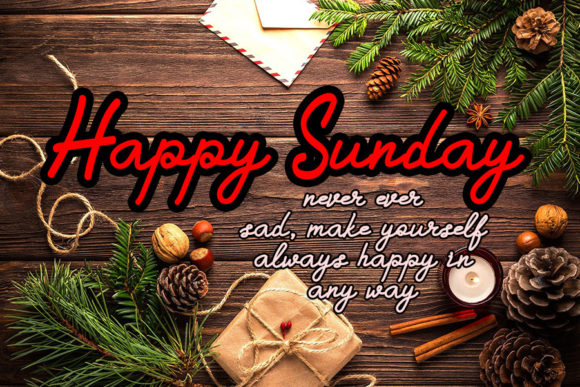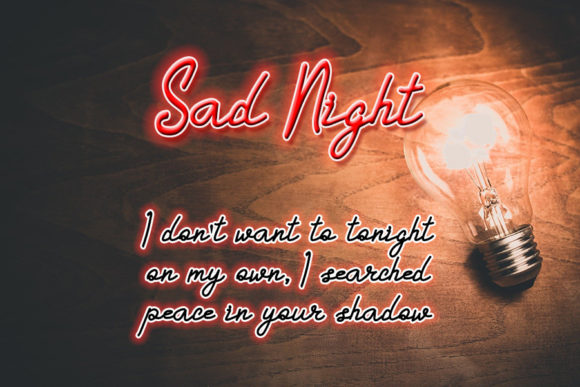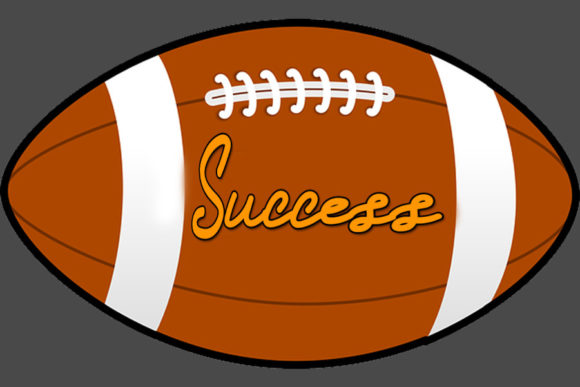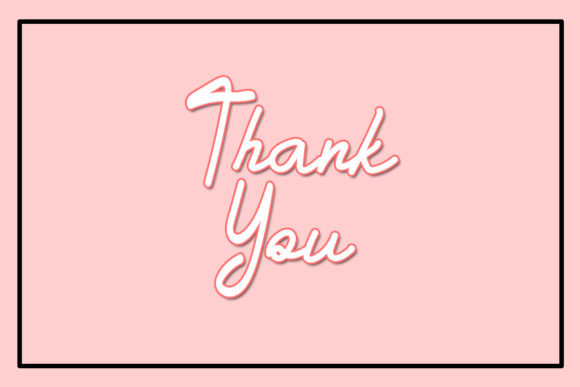
Introducing Buttercotch Font: The Sweetest Addition to Your Design Arsenal
Are you tired of using the same old fonts in your design projects? Look no further than Buttercotch Font, a sweet, all-round, and flexible handwritten font that’s sure to add a touch of warmth and romance to your creations. With its jolly and inviting vibe, Buttercotch Font is the perfect choice for designers and crafters looking to turn their project ideas into real works of art.
The Characteristics of Buttercotch Font
So, what makes Buttercotch Font so special? For starters, its handwritten style gives it a personal and organic feel that’s hard to replicate with more traditional fonts. The letters are carefully crafted to have a sense of movement and fluidity, making it perfect for use in a variety of design applications, from wedding invitations and greeting cards to branding and packaging.
But Buttercotch Font is more than just a pretty face. It’s also incredibly versatile, with a range of variations and alternates that allow you to customize it to suit your project’s needs. Whether you’re looking for a bold and playful look or something more subtle and understated, Buttercotch Font has got you covered.
Why Designers and Crafters Love Buttercotch Font
So, why are designers and crafters raving about Buttercotch Font? For one, its warm and romantic vibe makes it perfect for use in projects that require a personal touch. Whether you’re designing a wedding invitation or a handmade craft, Buttercotch Font adds a level of emotional connection that’s hard to achieve with more traditional fonts.
But Buttercotch Font is also a favorite among designers and crafters because of its flexibility. With its range of variations and alternates, you can use it to create a unique and customized look that’s all your own. And with its easy-to-read style, you can use it in a variety of applications, from large headlines to smaller body text.
Tips for Using Buttercotch Font in Your Designs
So, how can you get the most out of Buttercotch Font in your designs? Here are a few tips to get you started:
- Experiment with different variations and alternates to find the perfect look for your project.
- Use Buttercotch Font in combination with other fonts to create a unique and eye-catching design.
- Don’t be afraid to get creative and try out new and unusual design ideas.
- Use Buttercotch Font to add a personal touch to your designs, whether it’s a handmade craft or a professional branding project.
The Benefits of Using Buttercotch Font
So, what are the benefits of using Buttercotch Font in your designs? Here are just a few:
- Adds a warm and romantic vibe to your designs.
- Incredibly versatile and flexible.
- Easy to read and use in a variety of applications.
- Perfect for use in projects that require a personal touch.
- Can help you stand out from the crowd and create a unique design.
In conclusion, Buttercotch Font is a sweet and flexible handwritten font that’s perfect for designers and crafters looking to add a touch of warmth and romance to their creations. With its range of variations and alternates, ease of use, and versatility, Buttercotch Font is sure to become a favorite in your design arsenal. So why wait? Give Buttercotch Font a try today and see the difference it can make in your designs!
Have fun with this beautiful font and explore its endless variations. With Buttercotch Font, the possibilities are endless, and you’re sure to create something truly special.